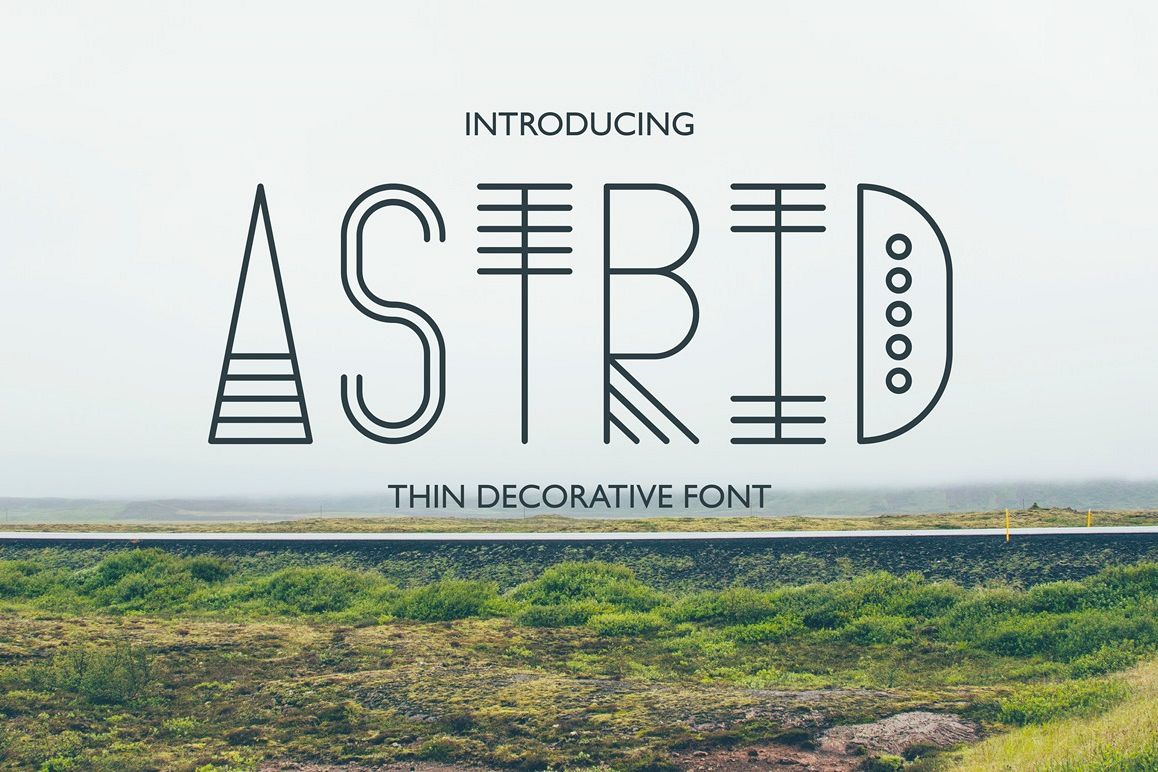
Astrid - Thin Decorative Font
I’m pleased to introduce you Astrid - thin decorative font with ethnic nature.
This typeface have fresh unusual look and it is perfect for logos or brand names, short phrases, advertising presentations and stylish posters.
Astrid is eclectic - combinations of strict lines and smooth curves create a unique harmony of this font. Astrid include special symbols of most of european languages, punctuations, numerals and mathematics signs.